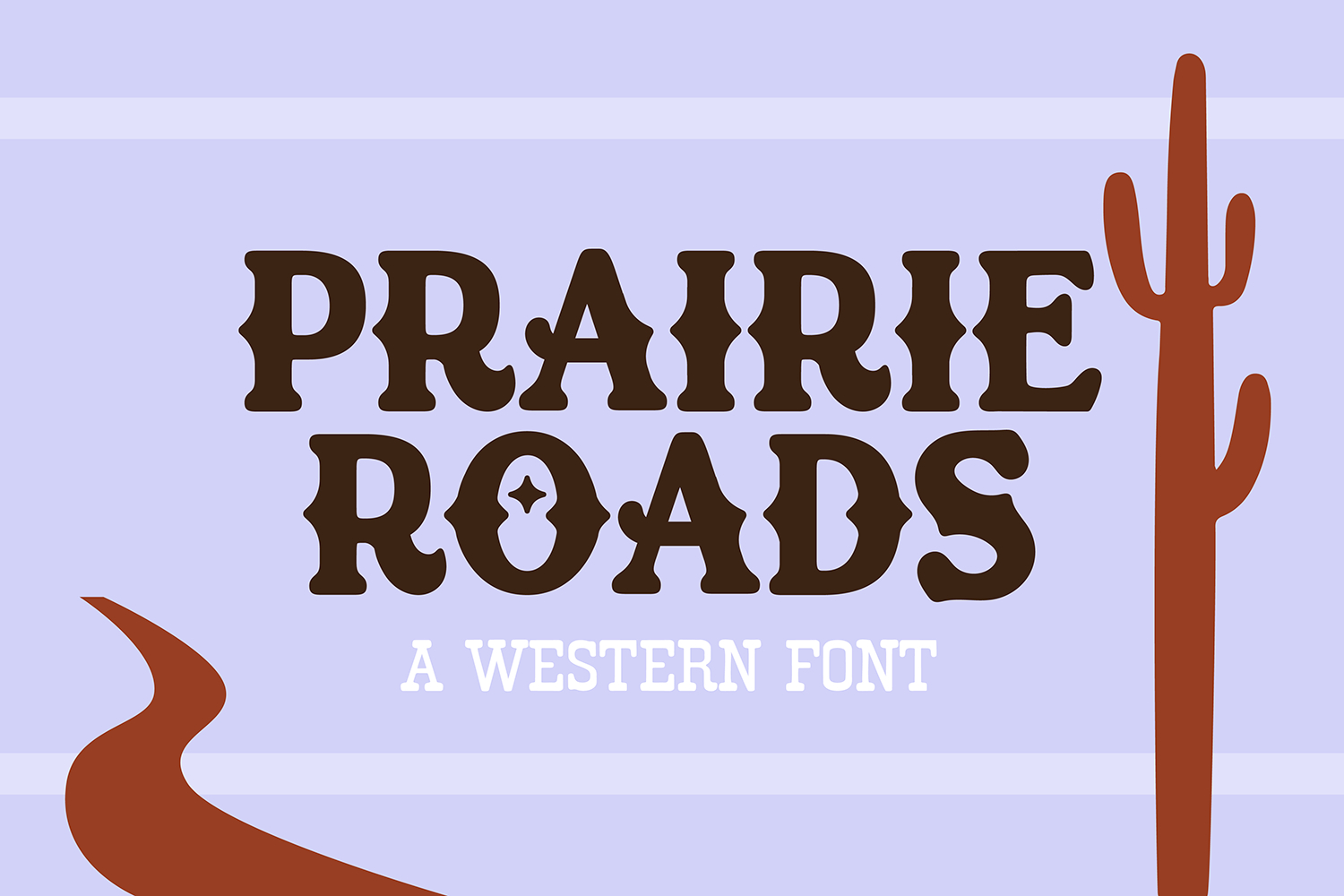
PRAIRIE ROADS Western Font
"PRAIRIE ROADS" a decorative western font.
Add a rustic western feel to your next project with this soft vintage-inspired font. This western display font combines medium-weight letterforms, rounded edges, and a playful retro cowboy aesthetic that works perfectly for Cricut crafts, boutique branding, apparel design, stickers, logos, packaging, social media graphics, invitations, western baby showers, country concert merch, rodeo themes, farmhouse decor, and trendy business branding. The soft curves and bold shape give this font a modern western look while still keeping that classic vintage cowboy personality.
• Western branding
• Retro cowgirl designs
• Country boutique logos
• Vintage apparel graphics
• Rodeo and ranch themes
• Cute western nursery decor
• Social media templates
• Cricut and Silhouette projects
• Handmade business branding